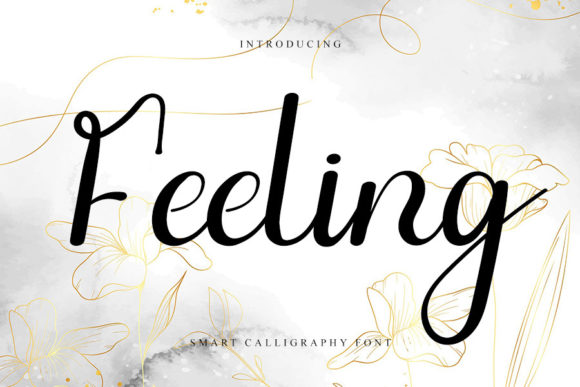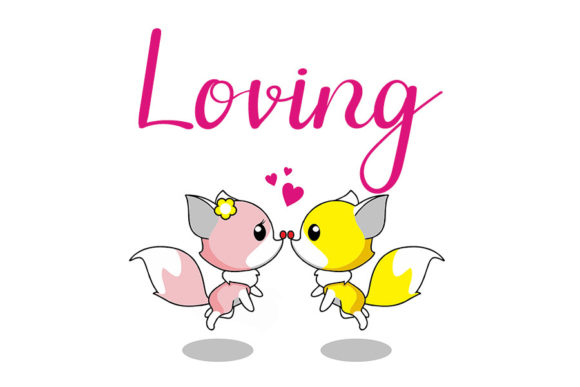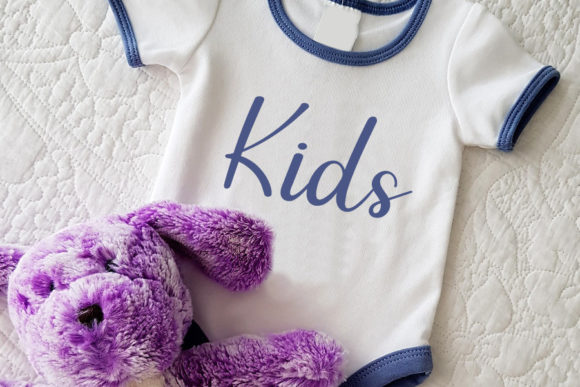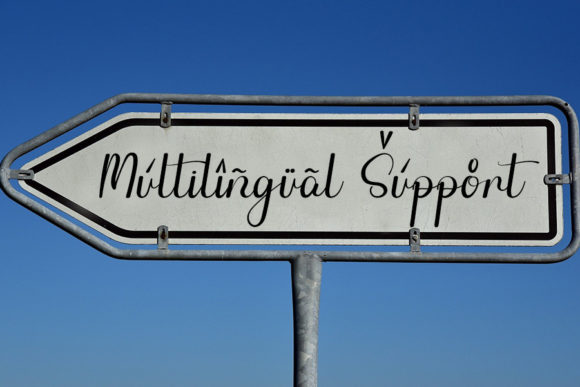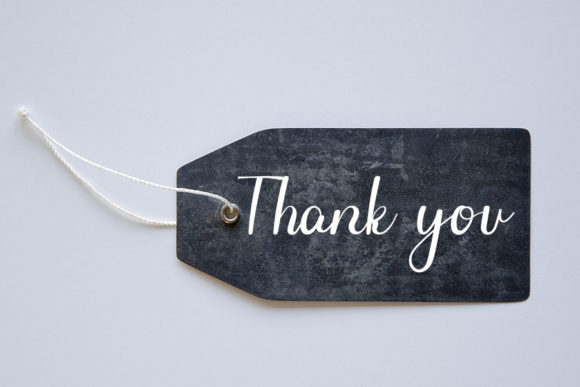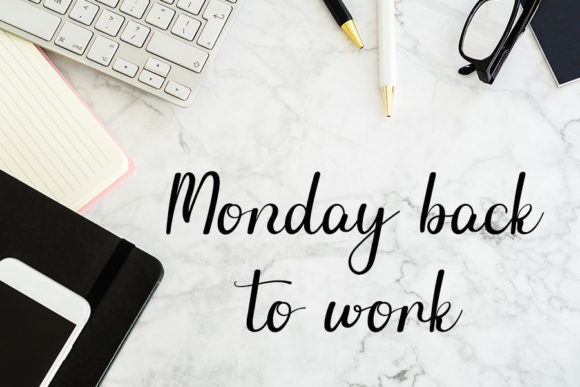
Feeling Font
About Feeling Font
Feeling is a captivating handwritten font that seamlessly blends modern style with the timeless elegance of classic calligraphy. Its contemporary flair and impeccable form make it a versatile choice for a wide range of design projects.
The balanced and varied strokes of Feeling lend a sense of dynamism to your creations, adding a touch of sophistication and charm. The font’s inspiration from classic calligraphy is evident in its graceful curves and carefully crafted letterforms, allowing it to exude a sense of timeless beauty.
With its stylish and contemporary atmosphere, Feeling is well-suited for a variety of design applications. Whether you’re working on branding, logos, invitations, posters, or social media graphics, this font effortlessly enhances the visual appeal of your projects.
The careful attention to detail in Feeling’s design ensures that it maintains its elegance and clarity across different sizes and mediums. Its versatile nature allows it to adapt seamlessly to both digital and print designs, making it a reliable choice for a wide range of creative endeavors.
Feeling’s sophisticated form and modern charm make it an excellent addition to your design toolkit. Its unique blend of classic calligraphy and contemporary style adds a touch of artistic flair to your projects while maintaining a clean and polished look.
Incorporating Feeling into your designs can elevate the overall aesthetic and create a lasting impression on your audience. Whether you’re aiming for a refined and upscale appearance or a modern and artistic vibe, Feeling is designed to enhance the beauty of your projects and bring your creative vision to life.